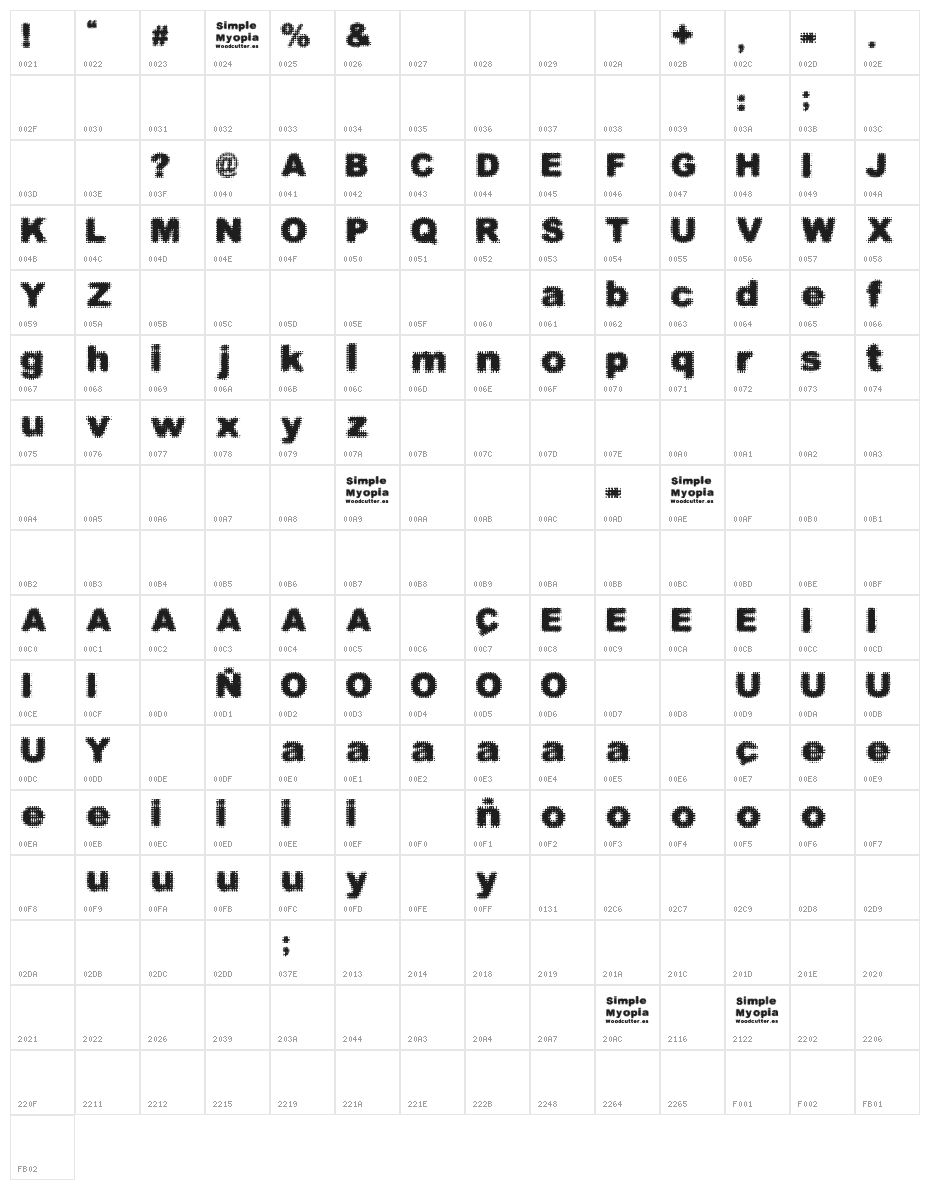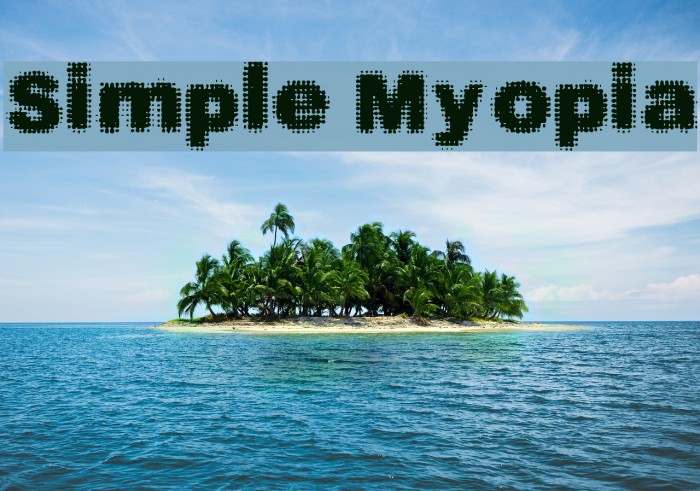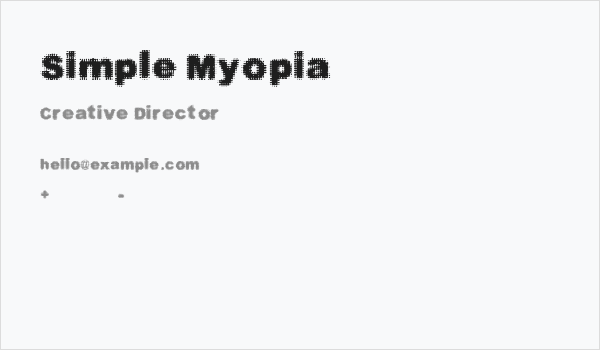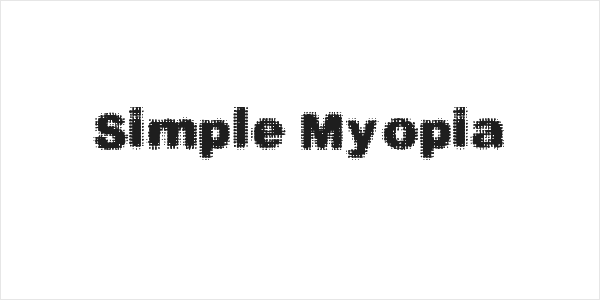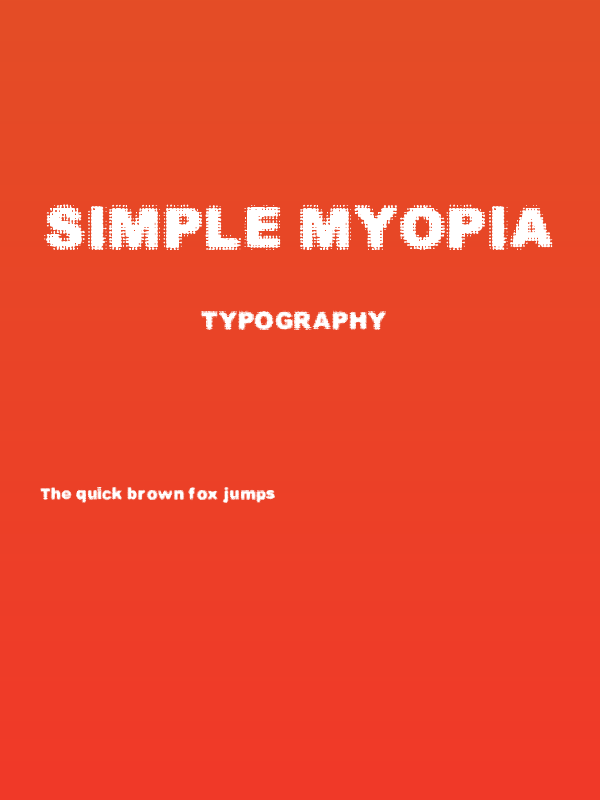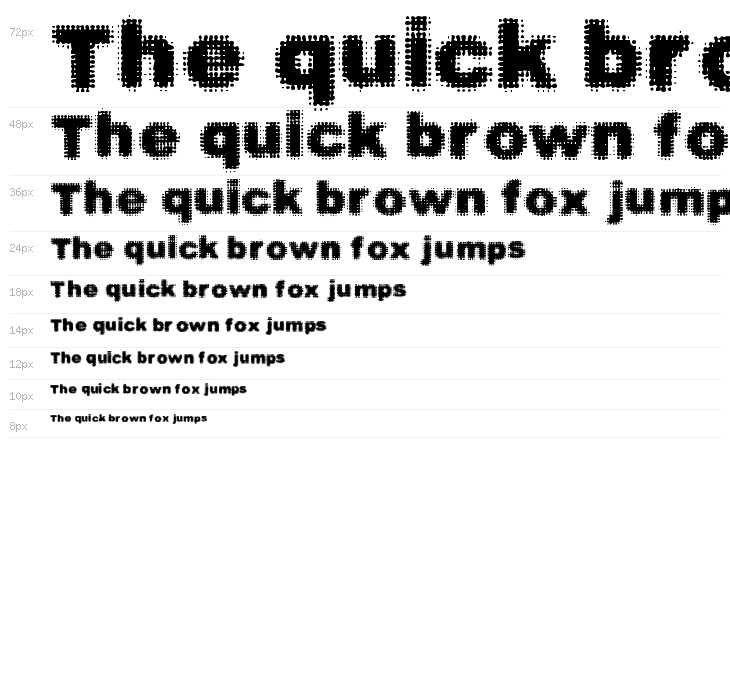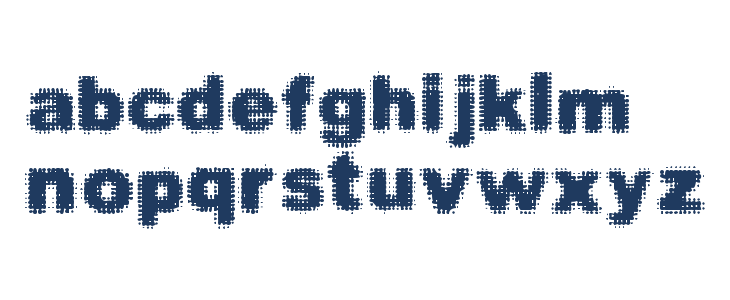
Simple Myopia Font
Simple Myopia Description
This font features a bold, dotted design that creates a textured and dynamic appearance. Each character is composed of small dots, giving it a unique, pixelated look. The uppercase and lowercase letters maintain a consistent style, with rounded edges and a substantial presence. The numbers and special characters follow the same dotted pattern, ensuring uniformity across all elements. This font's playful and eye-catching style makes it suitable for creative projects that require a distinctive and modern touch.
| Proposed Projects | Ideal for posters, digital art, branding, and any project that requires a modern and playful aesthetic. |